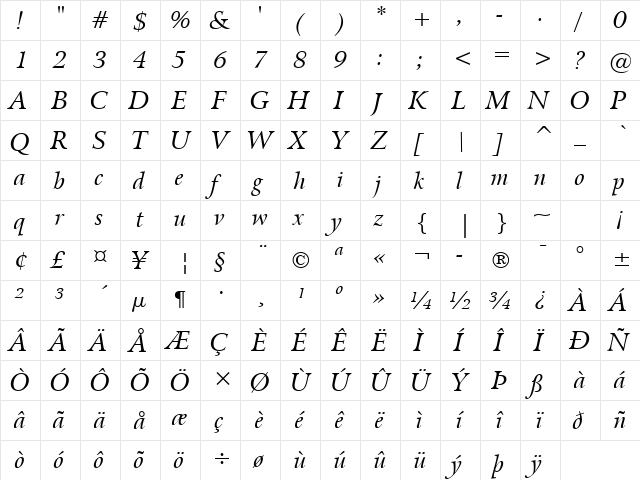
Arrus BT Italic
Design Context for Arrus BT Typeface
Arrus BT offers clean, dependable letterforms without strong stylistic allegiance, making it a practical choice for designers who need flexibility. The slanted form adds forward momentum and visual energy.
Pro Tip: Use Arrus BT for emphasis, pull quotes, and subheadings where its slanted energy can add rhythm to the layout.